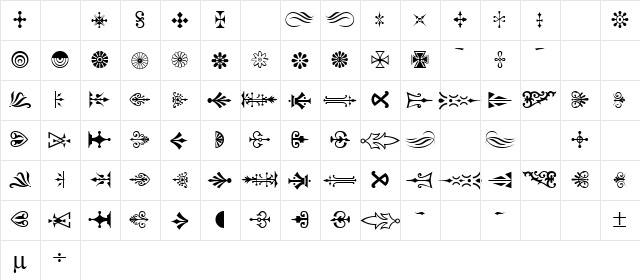
Decorea Regular
Design Context for Decorea Typeface
Decorea is a composed and adaptable typeface that performs quietly and consistently across a wide range of design contexts.